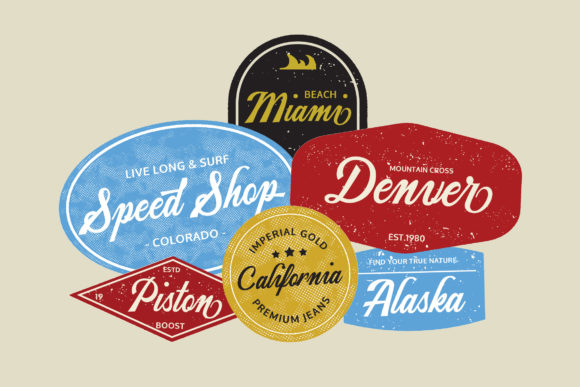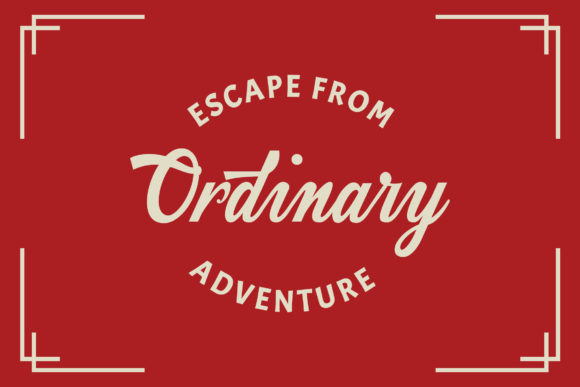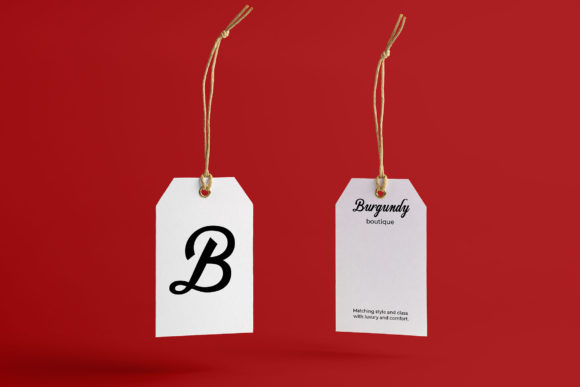
Introduction to Jazzbury Font
There’s something magical about stumbling upon the perfect font for a creative project – the stars align, the design begins to flow, and suddenly, everything comes together. For many designers, this moment is what makes all the hard work worth it. And for those who’ve discovered the Jazzbury Font, that moment is a recurring one. This bold and vintage handwritten font has captured the hearts of creatives everywhere with its casual charm and versatility.
As a valuable addition to any design resource, Jazzbury Font is a high-quality asset that can elevate any project. Whether you’re working on a free download or a paid commission, this font is sure to impress. With its transparent background and readable design, it’s perfect for standalone headlines or busy backgrounds. And the best part? It’s a true favorite among designers, making it a trusted companion for any creative endeavor.
So, what makes the Jazzbury Font so special? Let’s dive in and explore the world of this incredible design element.
Key Features of Jazzbury Font
- High-quality design resource ideal for creative projects, including music and entertainment themes.
- Features a unique, stylized aesthetic with a transparent background, allowing for easy customization and layering.
- Supports a wide range of languages, including Latin, Cyrillic, and Greek scripts.
- Perfect for designers and artists working on creative projects, including music albums, posters, and promotional materials.
Honest Review: Jazzbury Font
I recently had the chance to work with the Jazzbury Font, and I must say it’s a solid addition to any design resource. With its high-quality design and transparent background, it’s perfect for creative projects where you want a clean and modern look.
What works well: ✨ The Jazzbury Font is incredibly versatile, and I loved using it for both body text and headings. The font’s modern design makes it easy to pair with other fonts, and it’s great for creating a cohesive brand identity.
What doesn’t work well: ⚠️ One thing to note is that the font might not be suitable for projects that require a lot of bold or italic text. The font’s design doesn’t lend itself well to these styles, and it can look a bit awkward.
Overall, I was impressed with the Jazzbury Font, and I would definitely recommend it for any design project. The free download is a bonus, and I appreciate that the font is available in a range of weights and styles.
I’d say the Jazzbury Font is a great option for designers who want a high-quality font that’s easy to use. It’s perfect for logos, branding, and any other creative project where you want a clean and modern look.
- Easy to pair with other fonts
Tips for Getting the Most Out of Jazzbury Font
Experiment with different font sizes and styles to add visual interest to your design. Use the Jazzbury Font in conjunction with other high-quality design elements to create a cohesive and creative project.
The Jazzbury Font is suitable for various design projects, including logos, brochures, posters, and social media graphics. Its unique style and transparent background make it an ideal choice for creative projects that require a touch of sophistication and elegance.